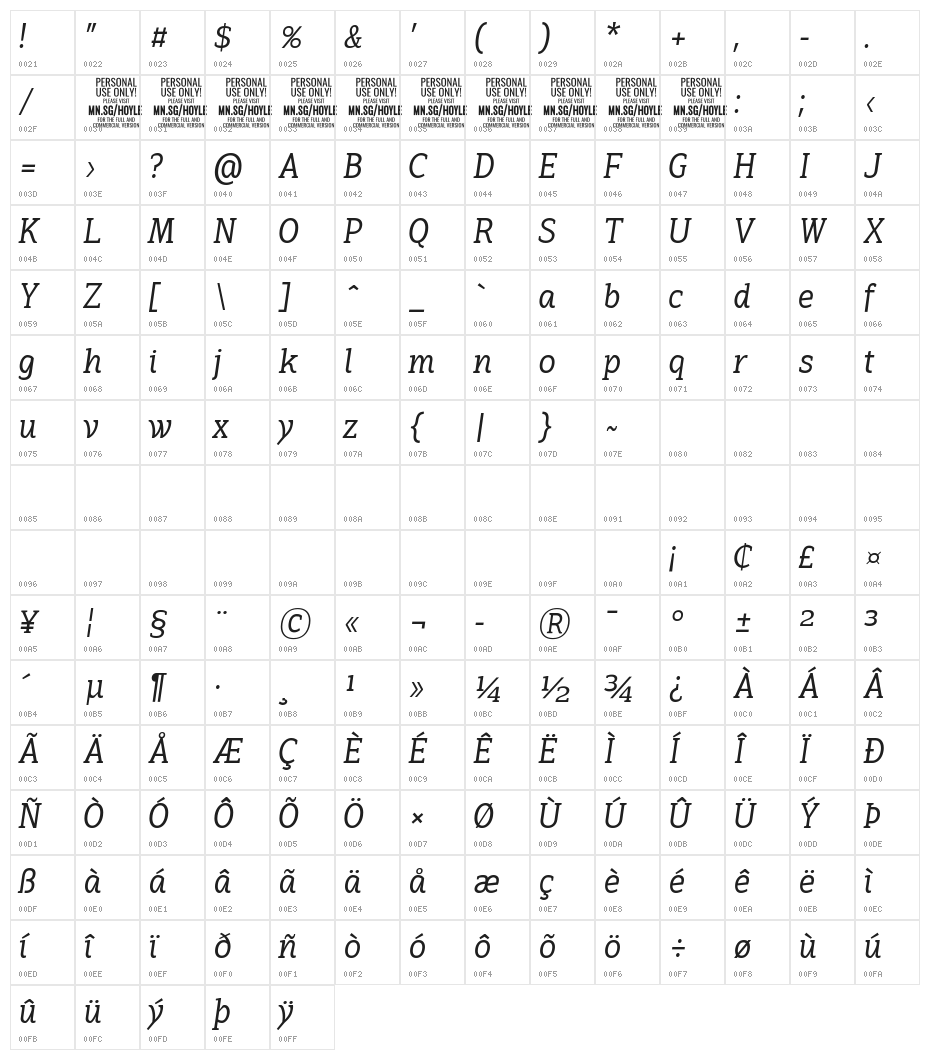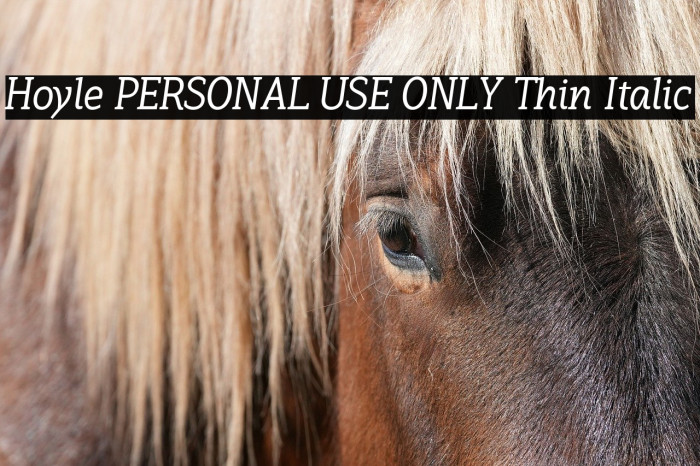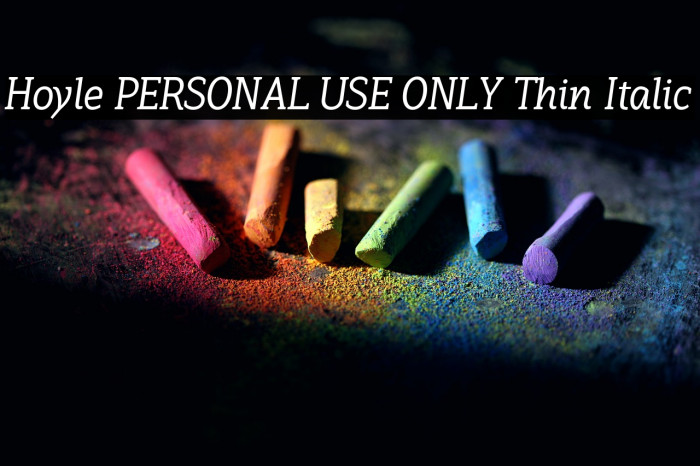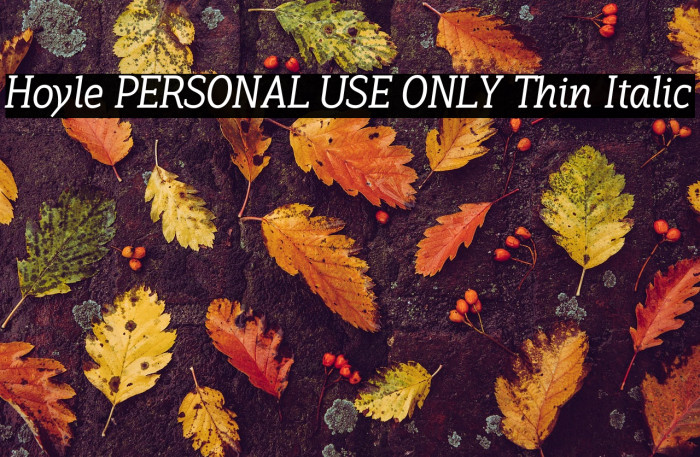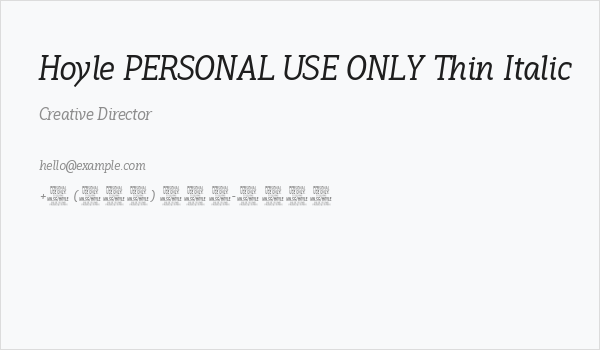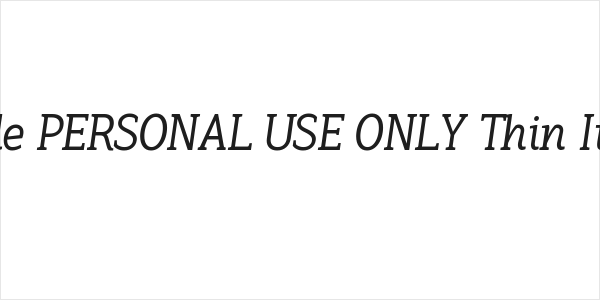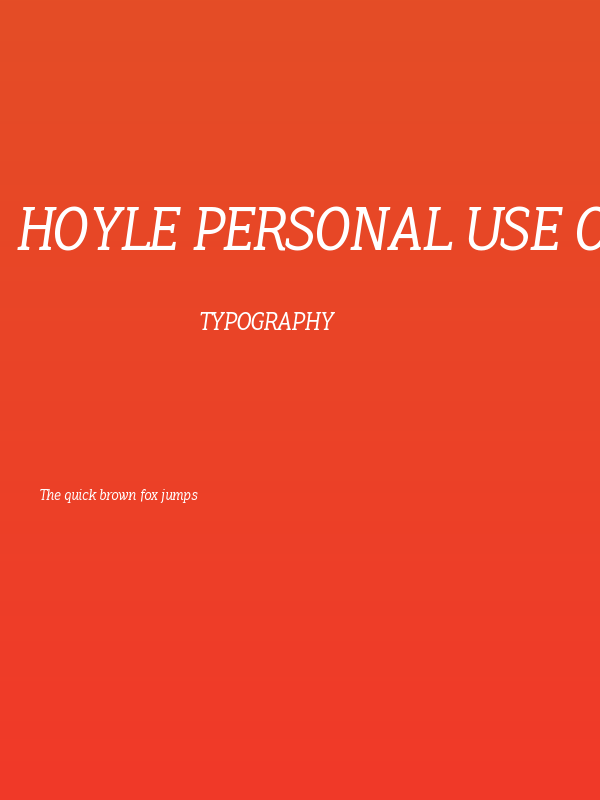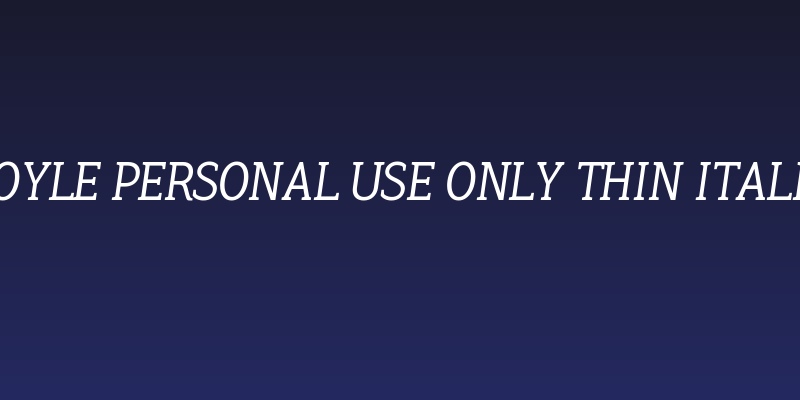
Hoyle PERSONAL USE ONLY Thin Italic Font
Hoyle PERSONAL USE ONLY Thin Italic Description
This font features a sleek and elegant design with a thin, italicized style that exudes sophistication. The characters are slightly slanted, giving a dynamic and fluid appearance. The uppercase letters are tall and commanding, while the lowercase letters maintain a consistent flow with smooth curves and clean lines. The numerals and special characters are designed to complement the overall aesthetic, maintaining the same thin and italicized characteristics. This font is ideal for projects that require a touch of elegance and modernity.